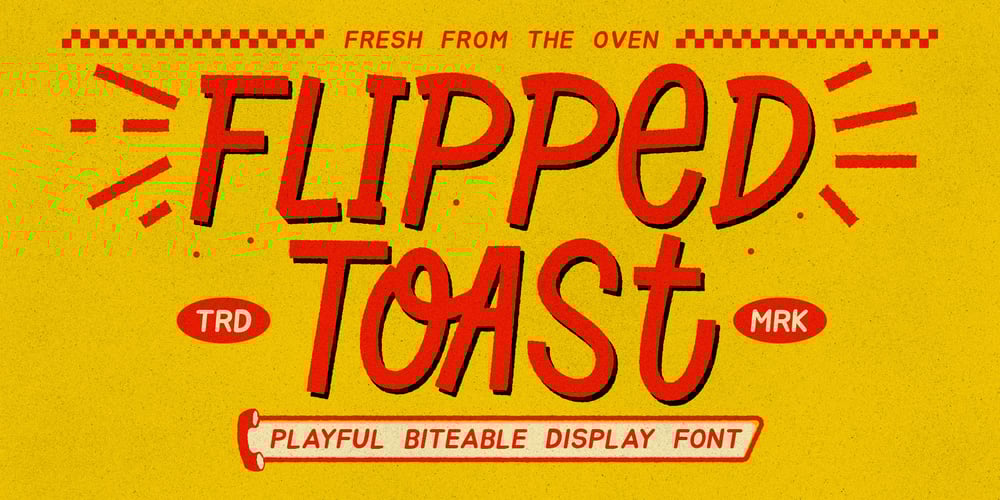
Flipped Toast Font Family was designed by Gha Arizal and published by Invasi Studio. Flipped Toast contains 1 styles and family package options. The Flipped Toast display font is a playful and biteable look. There is a combination of modernity, playfulness, and formality in it. Your projects will be more fun with it since it contains so many alternates and ligatures. It’s perfect for greeting cards, logos, posters, and anything else that needs a fun and happy look!